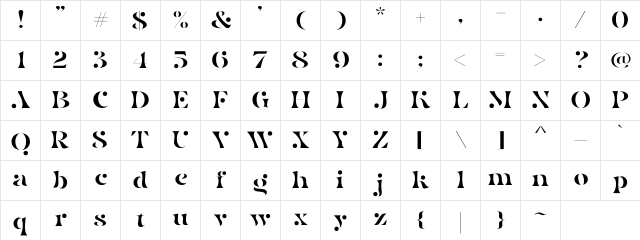
Complete Black Point Serif DEMO Regular glyph index. Displaying only characters natively supported by Black Point Serif DEMO Regular font.
Black Point Serif DEMO carries the refined structure of traditional serif typography, with bracketed terminals and considered proportions that communicate credibility and craft.
Pro Tip: Use Black Point Serif DEMO for editorial body copy and considered headline work. Pair with a neutral sans for UI elements or captions to create a classic hierarchy.